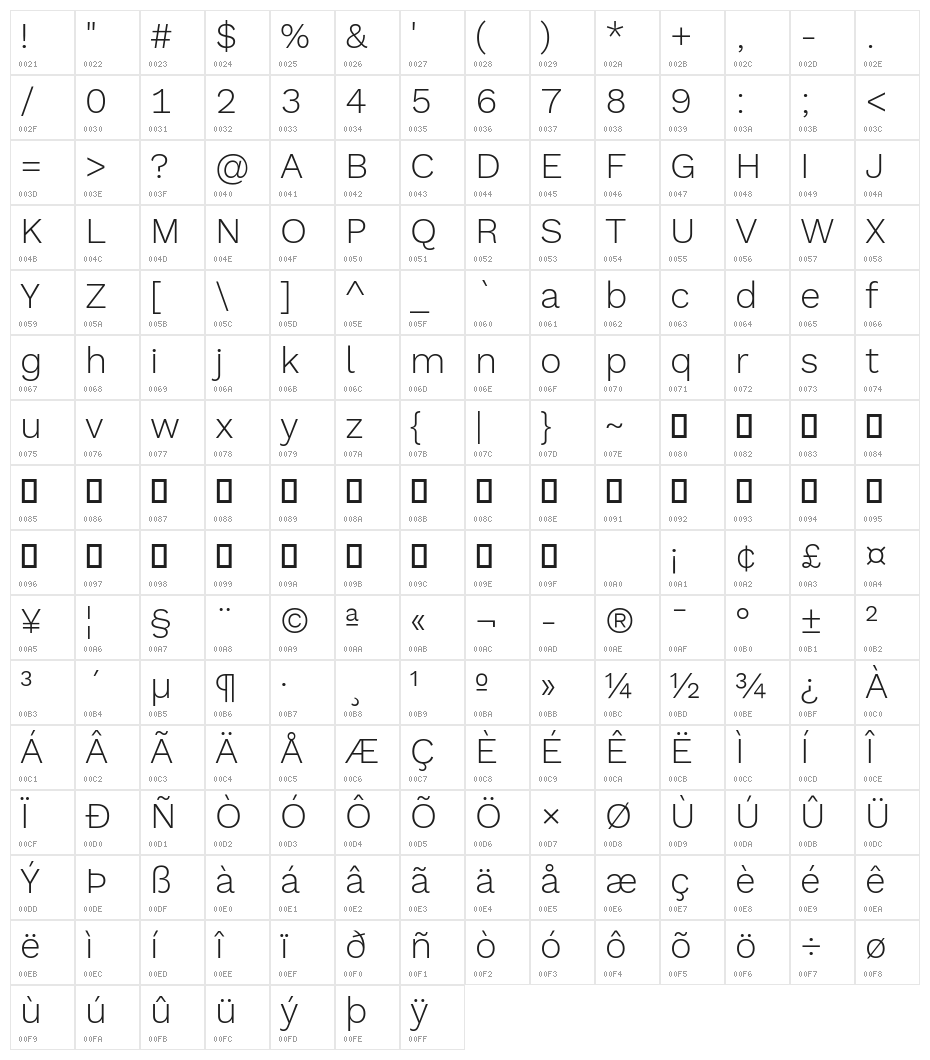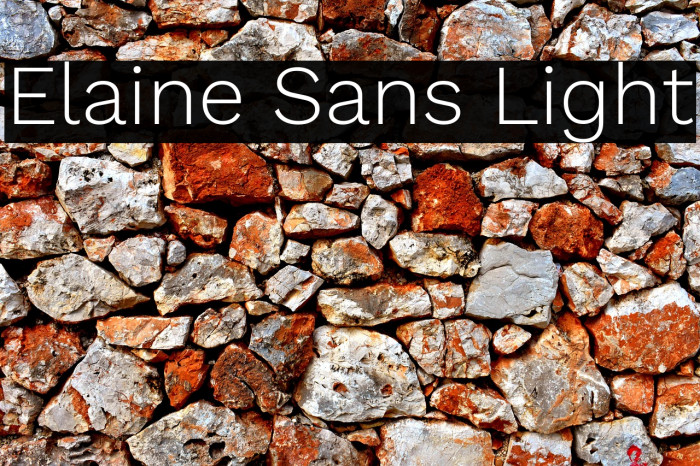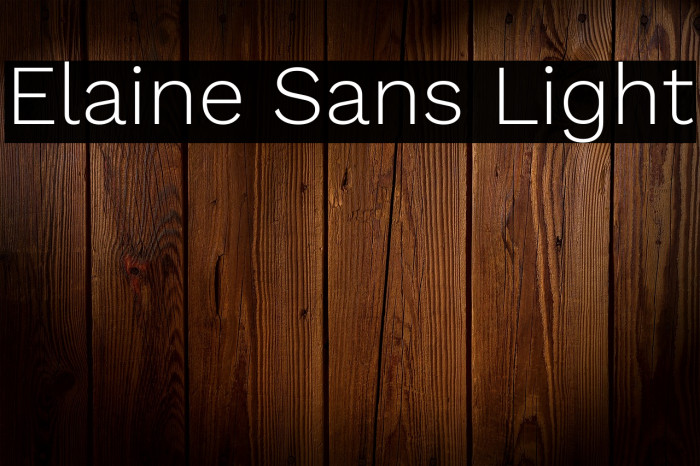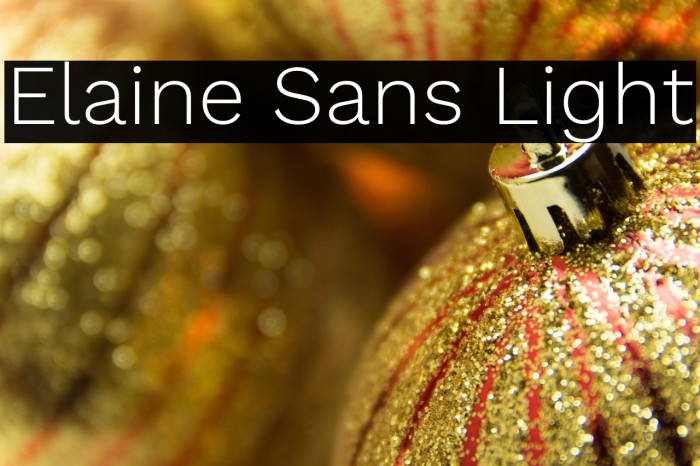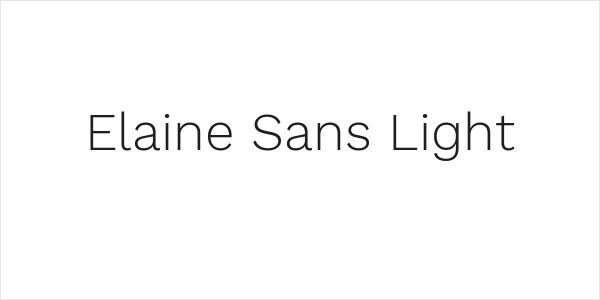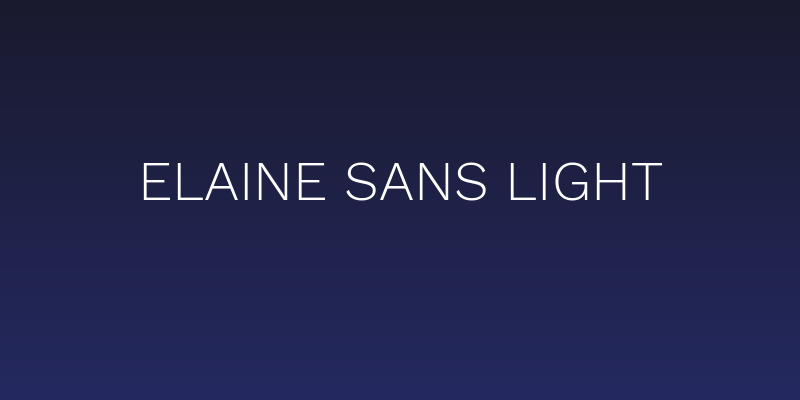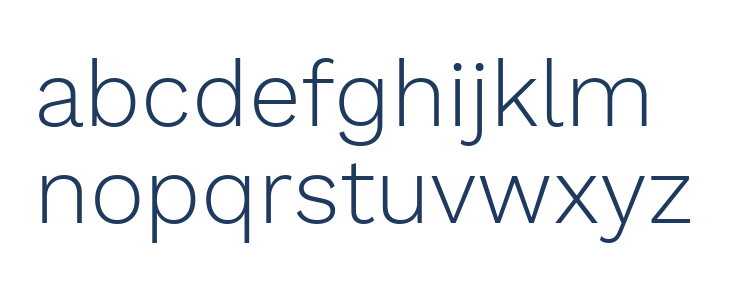
Elaine Sans Light Font
Elaine Sans Light Description
This typeface is a clean and modern sans-serif font characterized by its light weight and minimalistic design. The characters are evenly spaced with a consistent stroke width, giving it a sleek and contemporary appearance. The uppercase letters are tall and slightly narrow, while the lowercase letters maintain a uniform height, contributing to its readability. The numbers are clear and distinct, matching the overall aesthetic of the alphabet. Special characters are well-defined, ensuring versatility in various applications. This font's simplicity and elegance make it suitable for a wide range of design projects.